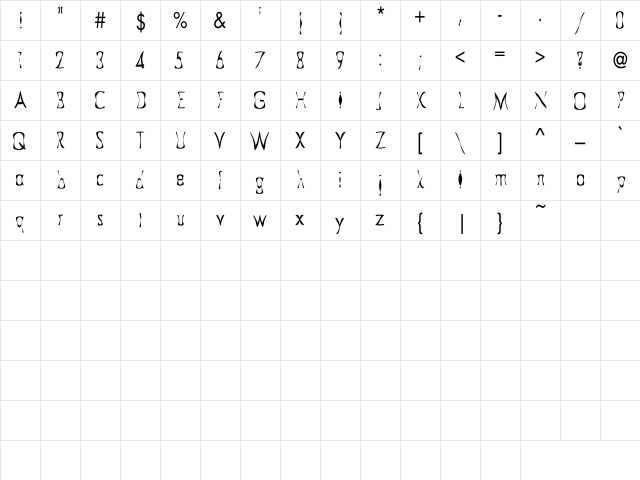
Astaire Regular
Astaire Family
Complete Astaire Regular glyph index. Displaying only characters natively supported by Astaire Regular font.
Design Context for Astaire
Astaire is a composed and adaptable typeface that performs quietly and consistently across a wide range of design contexts.